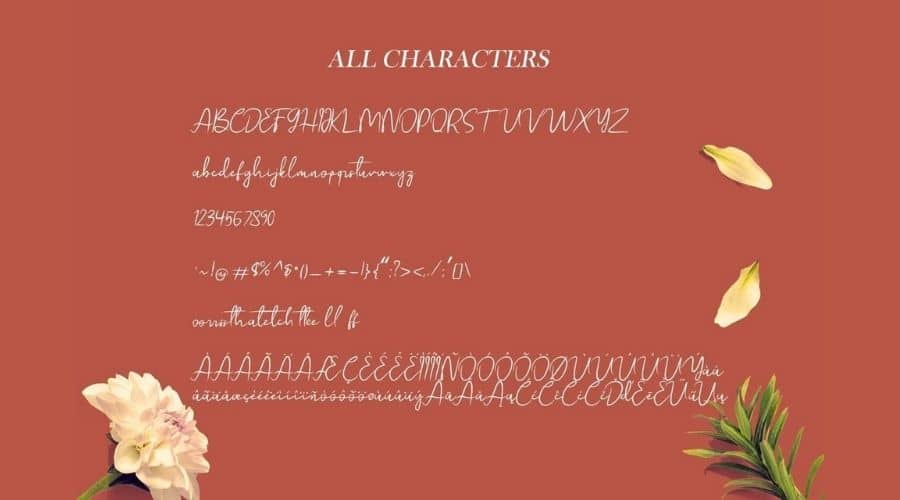
Esmeralda Handwritten Script Font
Esmeralda Typeface is a beautiful script font with a handwritten feel. Get inspired by the font’s unique shape and personality! On August 19, 2020, the font was made public. It has a dancing baseline and is easygoing and vibrant. Esmeralda is simple and easy to use.
Ahargun Craft Design created and produced the font. It’s totally handmade, and the bold and thin versions are ideal for mixing and matching. This typeface is ideal for a variety of projects because of its gentle, beautiful, and feminine feel. This is a lovely handwritten font with a modern feel to it! This typeface has a ton of great ligatures that give it a modern and stylish appearance! Esmeralda is a high-end handwritten script font.
Esmeralda is a decorative script font in the neoclassical style. It was made with sloppy, hand-drawn characters and a skewed baseline. The lovely font is ideal for logos and branding, invitations, stationery, wedding designs, social media posts, commercials, packaging, product designs, labels, photography, and watermarking. Almost every color combination looks excellent with the font. It provides every project a refined appearance.